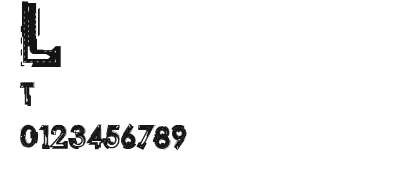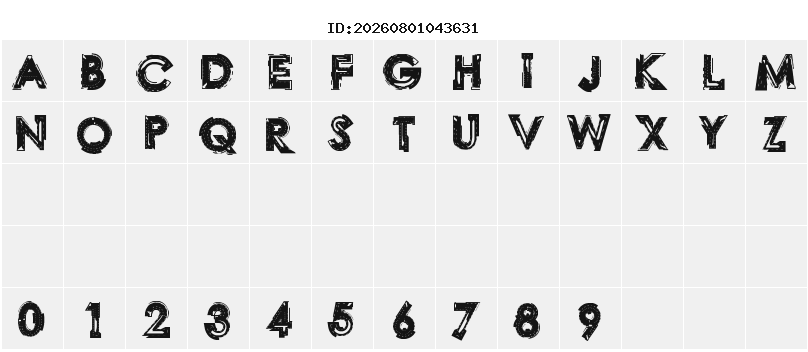
• Font Name: Labo
• Font ID: Labo:Version 1.00
• Full Font Name: Labo
• Version: Version 1.00 December 30, 2010, initial release
• PostScript Name: Labo
About Labo.ttf
Labo.ttf is a modern, elegant sans-serif font designed for ultimate readability and visual harmony. Perfect for branding, headlines, web design, and print materials.